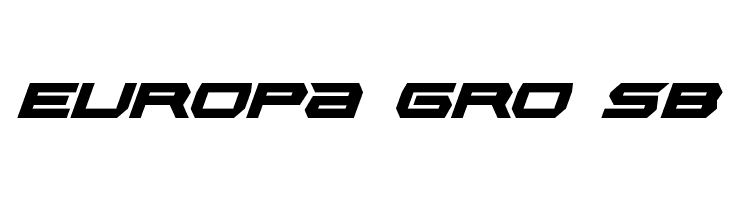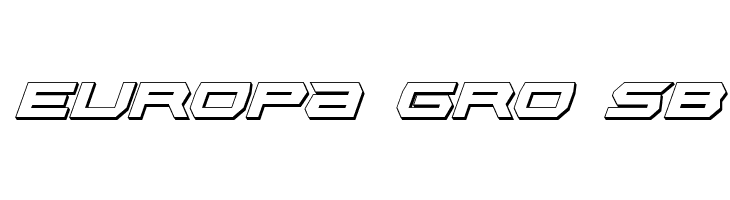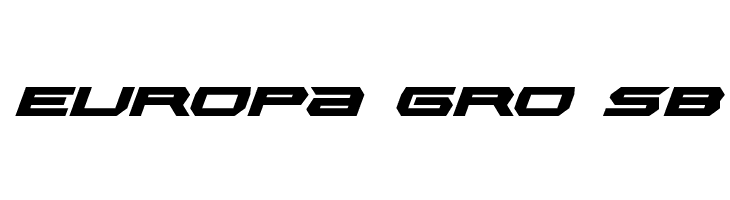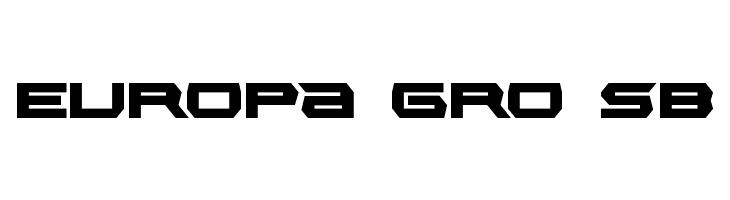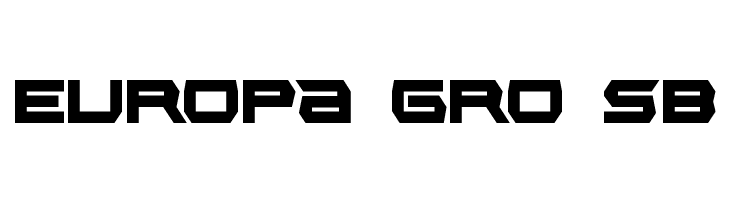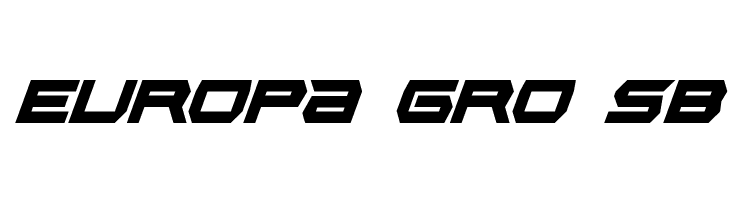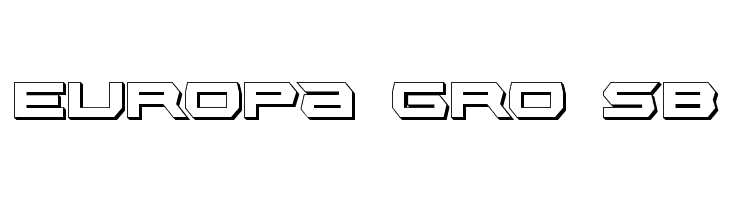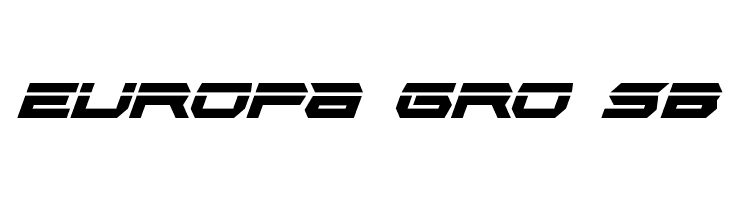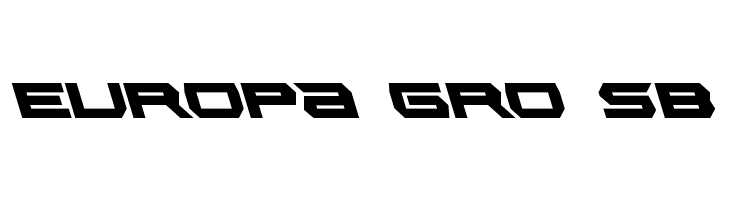
Lethal Slime Font
A bold, dripping font with a playful, eerie vibe perfect for spooky themes.
LETHALITY Font
A bold, playful font with irregular, dynamic characters.
Lethal Force 3D Italic Font
A bold, 3D italic font with a futuristic and dynamic design.
Lethal Force Condensed Italic Font
A bold, angular, and condensed italic font with a futuristic and aggressive style.
Lethal Force Italic Font
A bold, italicized font with a futuristic, angular design.
Lethal Force Expanded Italic Font
A bold, italicized font with sharp, angular lines and an expanded width for a dynamic, futuristic look.
Lethal Force Regular Font
A bold, futuristic font with sharp, angular edges and a geometric style.
Lethal Force Condensed Font
A bold, angular, and condensed geometric font with a futuristic style.
Lethal Force Expanded Font
A bold, futuristic font with sharp, angular edges and expanded width.
Lethal League Font
A bold, distressed font with a vintage, rugged aesthetic.
Lethal Force Laser Font
A futuristic, angular font with a bold, geometric design.
Lethal Force Laser Italic Font
A futuristic, angular italic font with a bold and dynamic style.
Lethal Force Leftalic Font
A bold, angular font with a futuristic and aggressive style.
Lethal Force 3D Font
A bold, 3D geometric font with a futuristic and industrial style.
Lethal Injector Hollow Italic Font
A bold, angular, and italicized font with a futuristic, edgy design.
Grand Lethals Font
A tall, narrow font with high contrast and angular serifs, perfect for dramatic designs.
Lethal Injector Inline Italic Font
A bold, angular, and futuristic font with an italic style and double-line outline.
Lethal Injector Thin Italic Font
A futuristic, angular, and italicized font with thin strokes and a modern feel.
Lethal Injector Inline Font